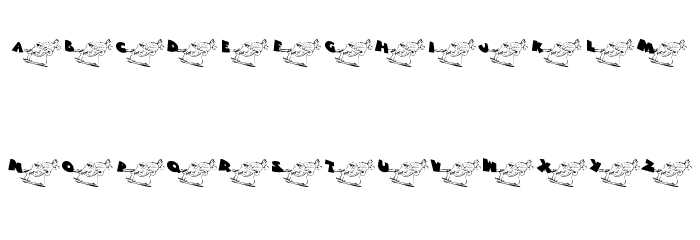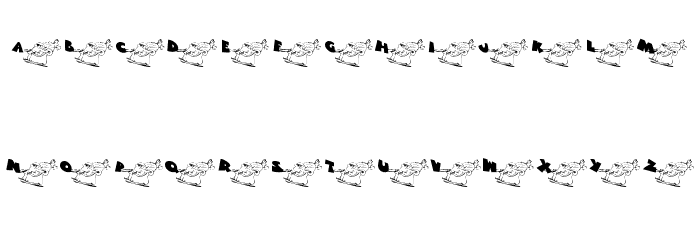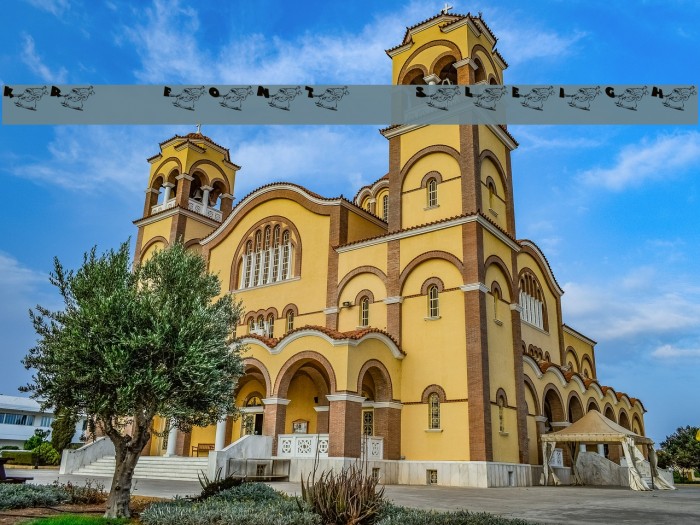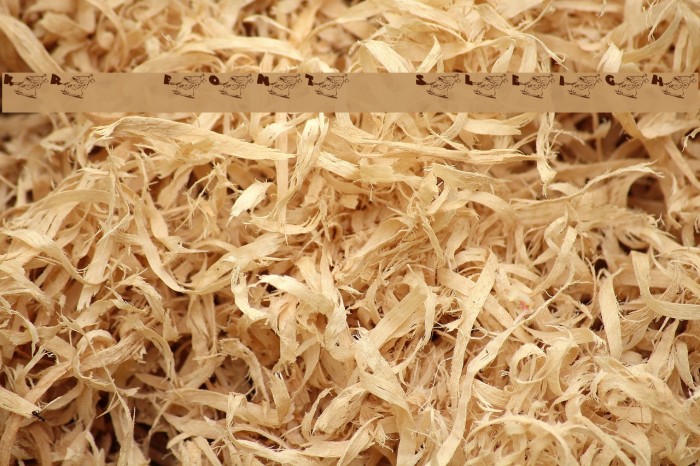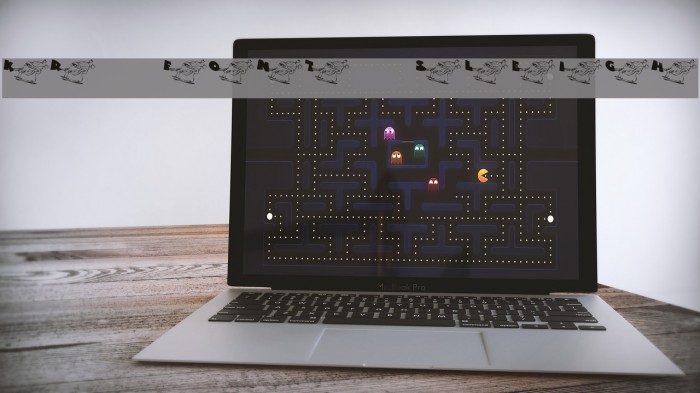
KR Font Sleigh Font
This decorative font features each character integrated with a whimsical sleigh design, creating a playful and festive appearance. The letters are bold and clear, ensuring readability while maintaining a unique and artistic style. The sleigh motif adds a seasonal charm, making it ideal for holiday-themed projects. The characters are evenly spaced, providing a balanced look across the text. The font combines traditional letterforms with creative embellishments, resulting in a distinctive and eye-catching design.
A decorative font with sleigh motifs, perfect for festive designs.
- Proposed Projects: Ideal for holiday cards, festive banners, seasonal advertisements, and winter-themed invitations.